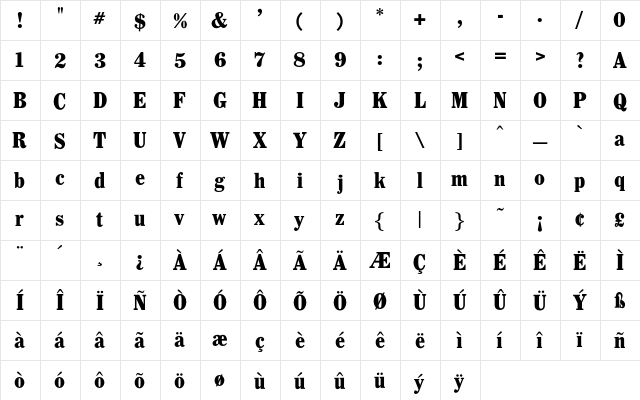
Whitin Condensed Black
| Style | Condensed Black |
| Foundry | Claude |
| Designer | Claude P. |
Design Context for Whitin Typeface
Whitin takes a measured approach to typography — its balanced proportions and neutral character make it a reliable workhorse for both digital and print work. Its narrow stance lets it pack a punch even in space-constrained designs.